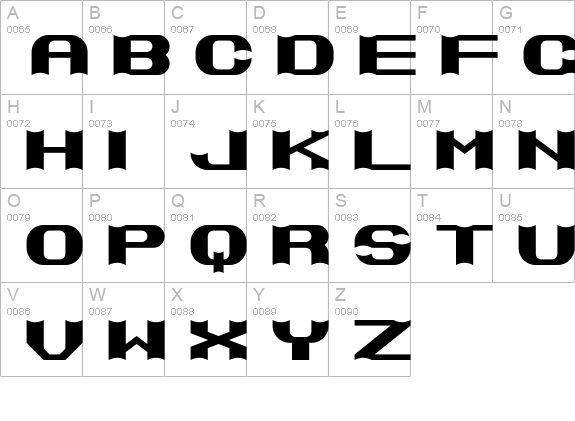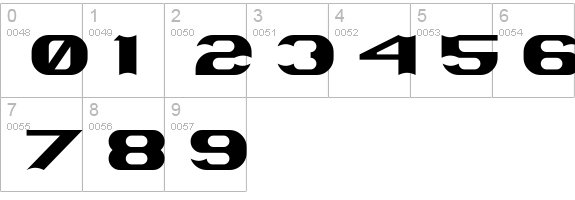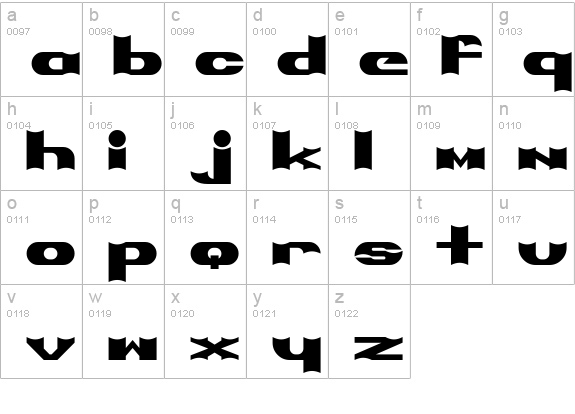
Primo Font Details
Primo font is a versatile and modern typeface that exudes elegance and sophistication. Its clean lines and balanced proportions make it perfect for a wide range of design projects, from branding to editorial layouts. The font's timeless aesthetic adds a touch of class to any design, making it a go-to choice for designers looking to elevate their work. What sets Primo font apart is not only its stunning design but also its accessibility. This high-quality font is available for free download at FontsMarket.com, allowing designers of all levels to access and use it in their projects without any cost. Whether you're working on a personal project or a client commission, Primo font is sure to impress with its versatility and style. With Primo font, you can effortlessly create professional-looking designs that stand out and make a lasting impression. So why wait? Download Primo font for free today and take your design projects to the next level!